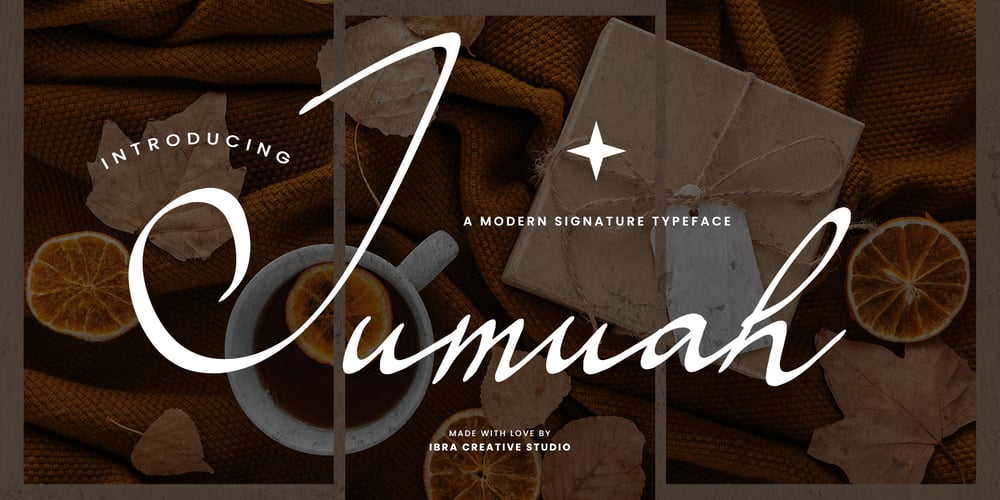
Jumuah Font Family was designed by Roisatul Azizah and published by IbraCreative. Jumuah contains 1 styles and family package options. Jumuah – A Modern Script TypefaceJumuah, a modern script typeface, effortlessly blends contemporary elegance with timeless script aesthetics. Each letter is meticulously crafted with fluid strokes, creating a seamless and sophisticated flow that adds a touch of refinement to any design. The balanced combination of thin and thick lines in Jumuah reflects a harmonious contrast, ensuring readability while infusing a sense of modernity. This typeface is characterized by its graceful curves and dynamic connections between letters, offering a unique and stylish look that is versatile for a myriad of design applications. Jumuah is not merely a font; it is a visual expression of contemporary grace, making it an ideal choice for projects seeking to marry tradition with a sleek, modern edge.Jumuah is perfect for branding projects, logo, wedding designs, social media posts, advertisements, product packaging, product designs, label, photography, watermark, invitation, stationery, game, fashion and any projects.Fonts include multilingual support for; Afrikaans, Albanian, Czech, Danish, Dutch, English, Estonian, Finnish, French, German, Hungarian, Italian, Latvian, Lithuanian, Norwegian, Polish, Portuguese, Slovak, Slovenian, Spanish, Swedish.